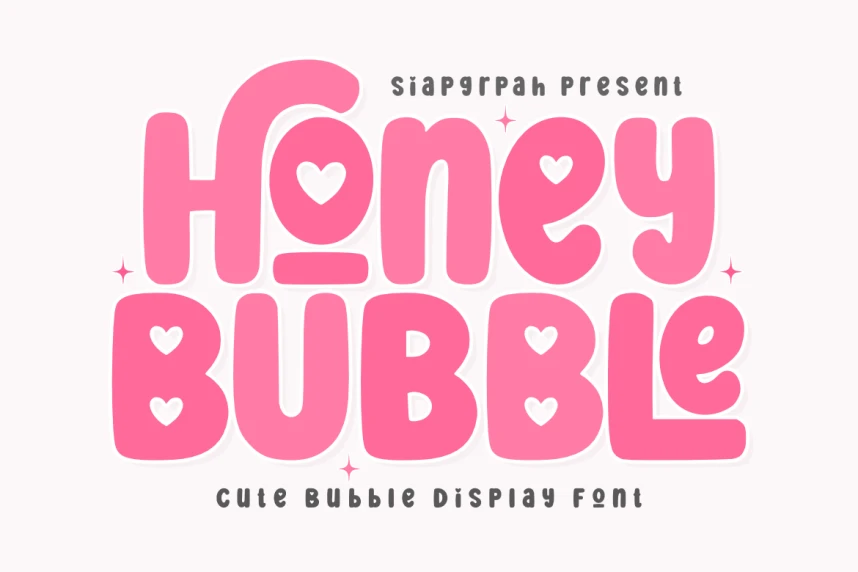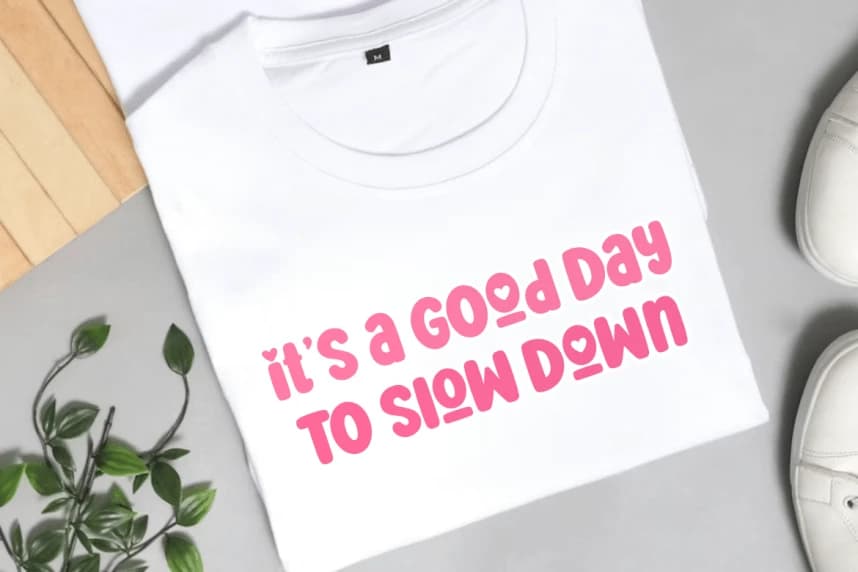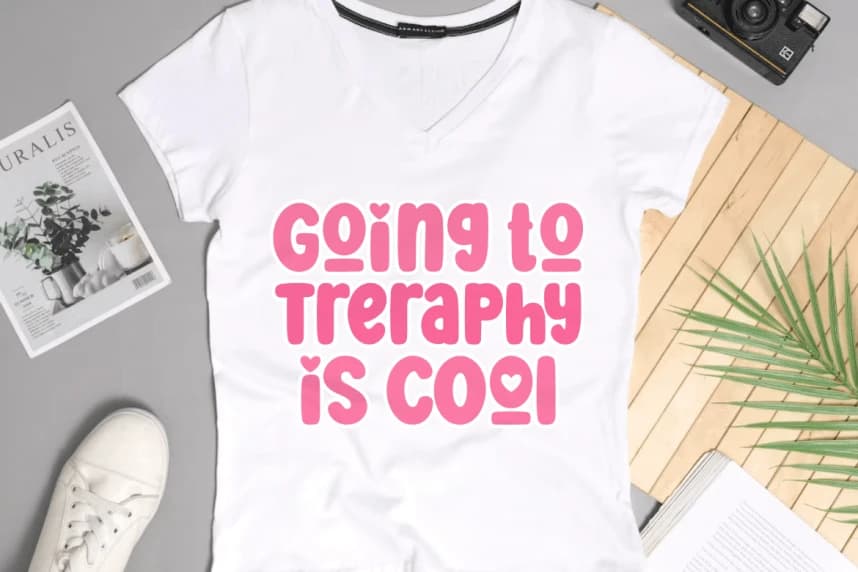
Honey Bubble Font
The asset is a single TTF font file designed for striking headlines, fun branding, and friendly visuals. It supports standard Latin characters and basic punctuation for quick prototyping.
Ideal uses
- Branding mockups, social headers, greeting cards
- Posters, packaging, and DIY projects
- Invites and playful UI headings